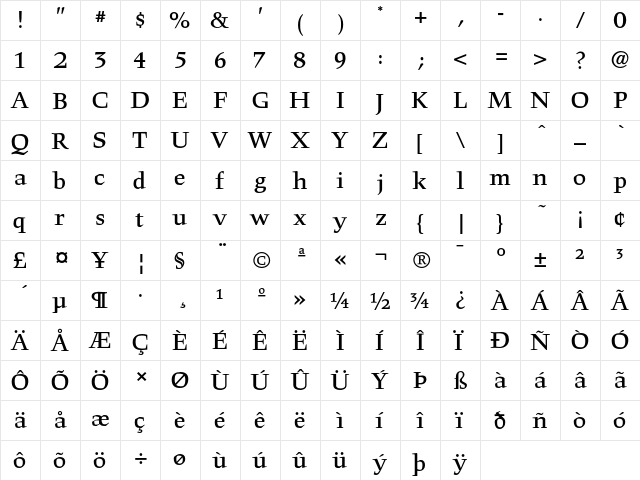
Hawkhurst LT Std Regular Bold
| Foundry | Linotype Library GmbH |
| Designer | Richard Yeend |
Design Context for Hawkhurst LT Std Regular Typeface
Hawkhurst LT Std Regular takes a measured approach to typography — its balanced proportions and neutral character make it a reliable workhorse for both digital and print work. The heavy weight commands attention and anchors typographic hierarchies.